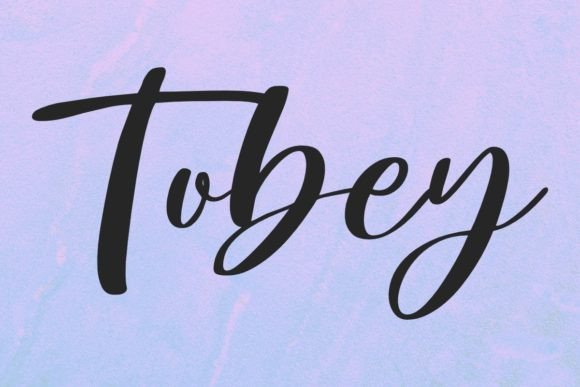
Prepare yourself to be mesmerized by Tobey Font, a playful handwritten font exclusively designed to bring sheer joy to your creative endeavors. This exquisite script is more than just a font; it's an emblem of happiness, a testament to the sheer delightfulness that awaits within. When you download Tobey Font, you're not just downloading a collection of letters and symbols; you're inviting a world of cheerfulness into your digital toolbox.
Crafted with meticulous care by the skilled hands at olivetype, Tobey Font exudes a charm that is simply irresistible. Its whimsical curves and cheerful strokes create an instant connection with the viewer, leaving a trail of smiles in its wake. Whether you're a seasoned designer or just starting your creative journey, Tobey Font will effortlessly elevate your projects with its infectious charm.
Unleash your creativity with Tobey Font, the perfect companion for Cricut projects. Its smooth, flowing lines make it an ideal choice for cutting intricate designs, adding a touch of unique flair to your handmade creations. Whether you're creating personalized gifts, home décor, or eye-catching cards, Tobey Font will transform your visions into captivating realities.
Beyond its aesthetic appeal, Tobey Font also offers unparalleled versatility. It seamlessly blends with a wide range of design styles, from the whimsical and playful to the elegant and sophisticated. Whether you're crafting invitations for a special occasion, designing logos for your business, or creating social media graphics that pop, Tobey Font will seamlessly adapt, adding a touch of magic to every project.
Immerse yourself in the world of Tobey Font and discover a world of endless possibilities. Its infectious happiness will spread like wildfire throughout your creative projects, leaving a lasting impression on all who encounter it. Don't settle for ordinary fonts; embrace the sheer delight of Tobey Font and watch your creations come to life with an unparalleled vibrancy.